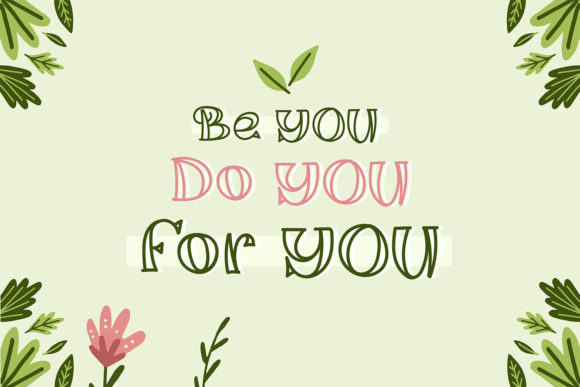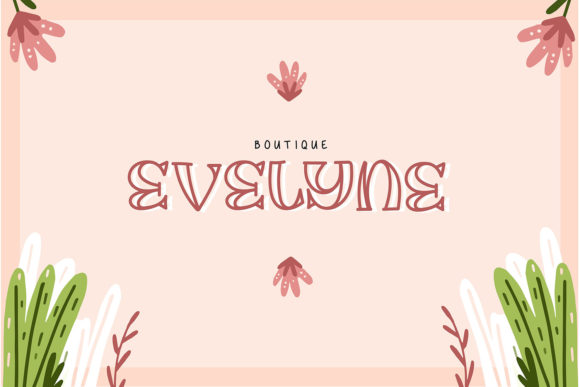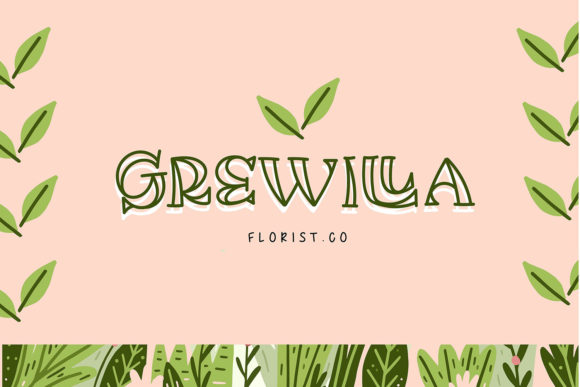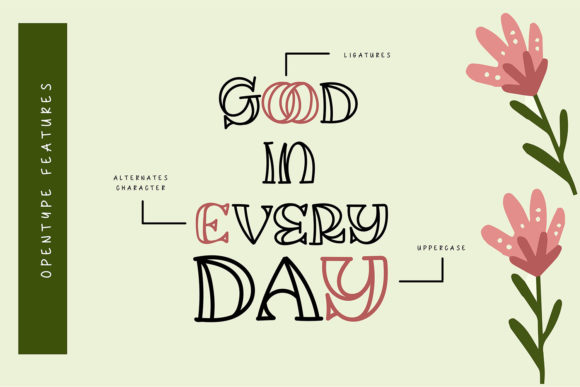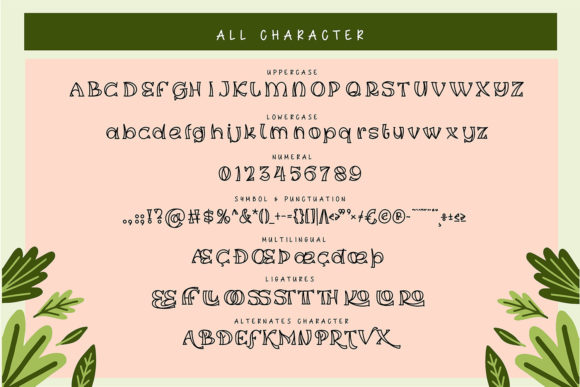
Introducing Groveyard Font: A Whimsical and Luxurious Display Font
Are you tired of using the same old fonts in your designs? Look no further! Groveyard Font is a unique and luxurious display font that is sure to take your creations to the next level. With its whimsical and elegant design, this font is perfect for designers and crafters who want to add a touch of sophistication and personality to their work.
What Makes Groveyard Font Special?
Groveyard Font is a standout font that offers a range of features that make it a must-have for any designer or crafter. Here are just a few things that make this font special:
• Whimsical and Luxurious Design: Groveyard Font has a unique and elegant design that is sure to add a touch of sophistication to any project.
• PUA Encoded: This font is PUA (Private Use Area) encoded, which means that you can access all of the glyphs and swashes with ease.
• Ease of Use: With Groveyard Font, you can easily access all of the glyphs and swashes, making it simple to add a personal touch to your designs.
The Benefits of Using Groveyard Font
So, why should you choose Groveyard Font for your next project? Here are just a few benefits of using this amazing font:
• Adds Personality to Your Designs: With its unique and whimsical design, Groveyard Font is sure to add a touch of personality to any project.
• Perfect for Display Text: This font is specifically designed for display text, making it perfect for headlines, titles, and other large text elements.
• Versatile: Groveyard Font can be used in a range of projects, from digital designs to print materials.
How to Use Groveyard Font in Your Designs
Using Groveyard Font in your designs is easy! Here are a few tips to get you started:
• Choose the Right Size: Groveyard Font is designed for display text, so make sure to use it at a large enough size to showcase its unique features.
• Experiment with Glyphs and Swashes: With PUA encoding, you can easily access all of the glyphs and swashes in Groveyard Font. Experiment with different combinations to add a personal touch to your designs.
• Pair it with Other Fonts: Groveyard Font can be paired with a range of other fonts to create a unique and interesting design.
Who is Groveyard Font For?
Groveyard Font is perfect for a range of designers and crafters, including:
• Graphic Designers: If you’re a graphic designer looking for a unique and luxurious font to add to your collection, Groveyard Font is a must-have.
• Crafters: If you’re a crafter who loves to create handmade cards, invitations, and other paper crafts, Groveyard Font is a great choice.
• Digital Designers: If you’re a digital designer who creates social media graphics, blog posts, and other digital content, Groveyard Font is a great addition to your font collection.
In conclusion, Groveyard Font is a unique and luxurious display font that is sure to take your designs to the next level. With its whimsical and elegant design, PUA encoding, and ease of use, this font is perfect for designers and crafters who want to add a touch of sophistication and personality to their work. Whether you’re a graphic designer, crafter, or digital designer, Groveyard Font is a must-have font to add to your collection.